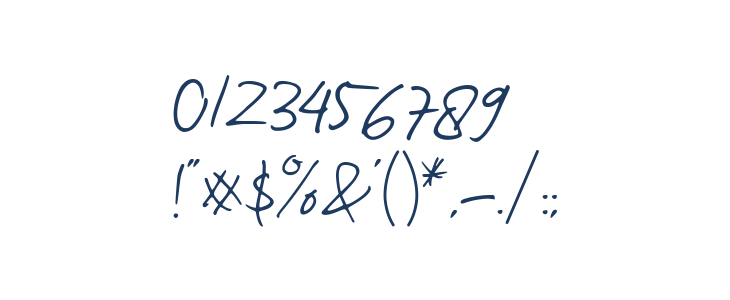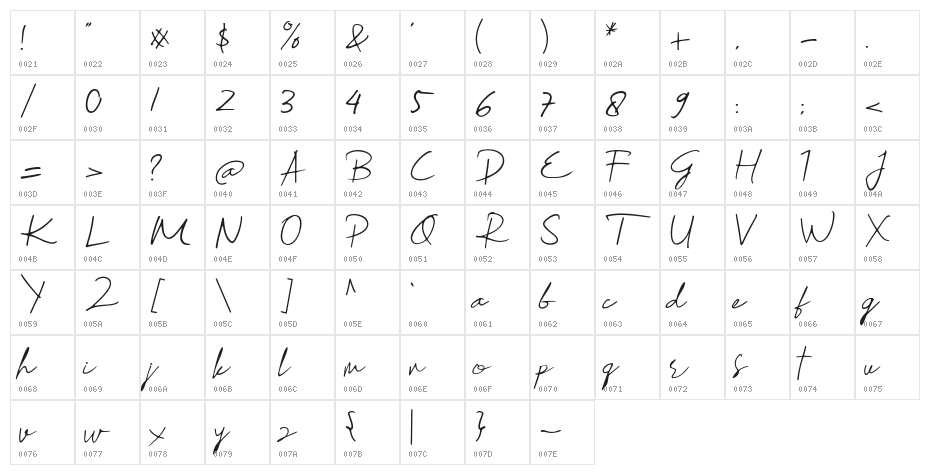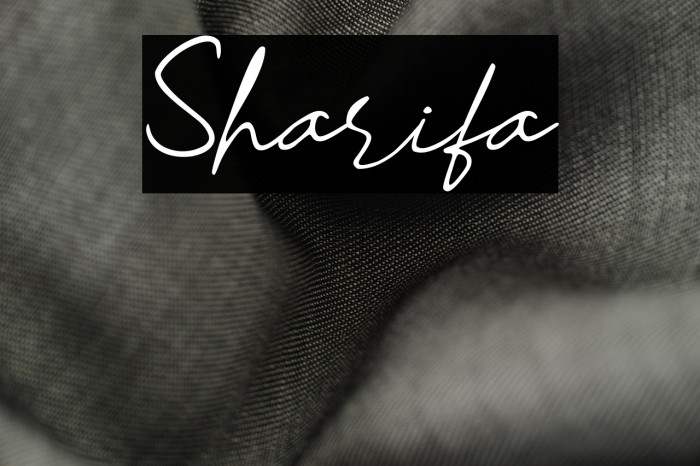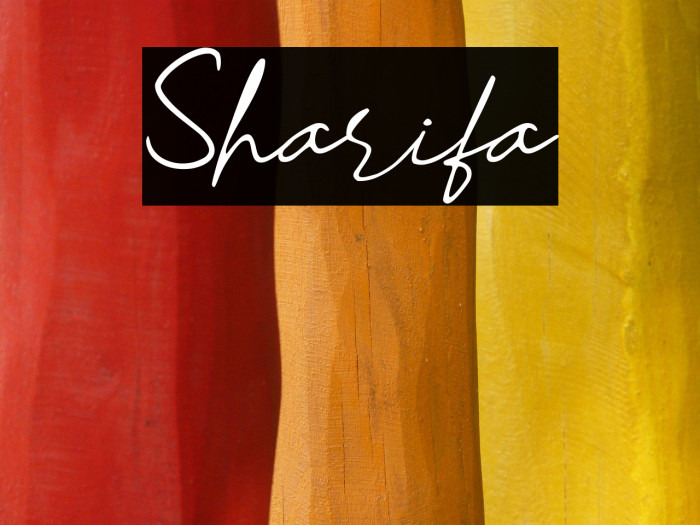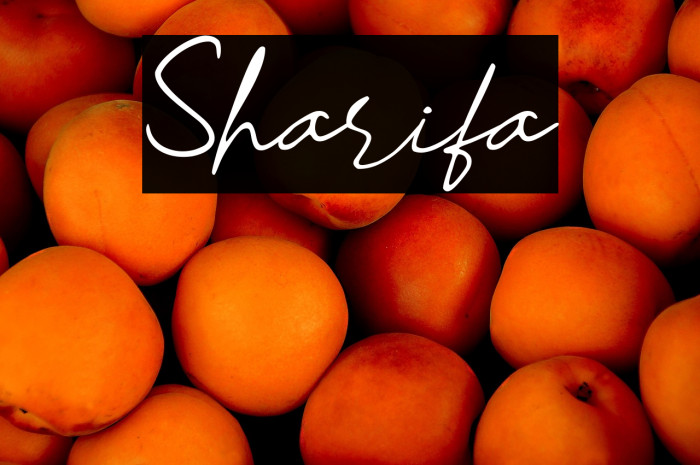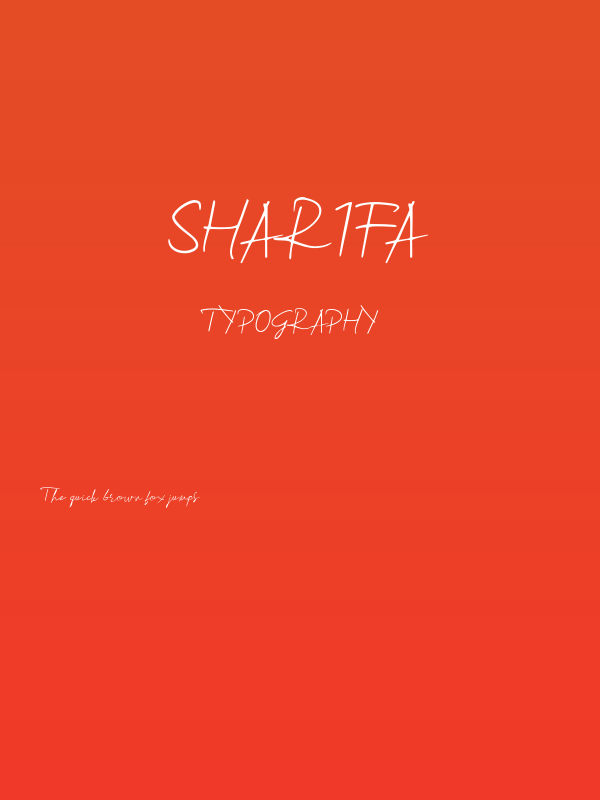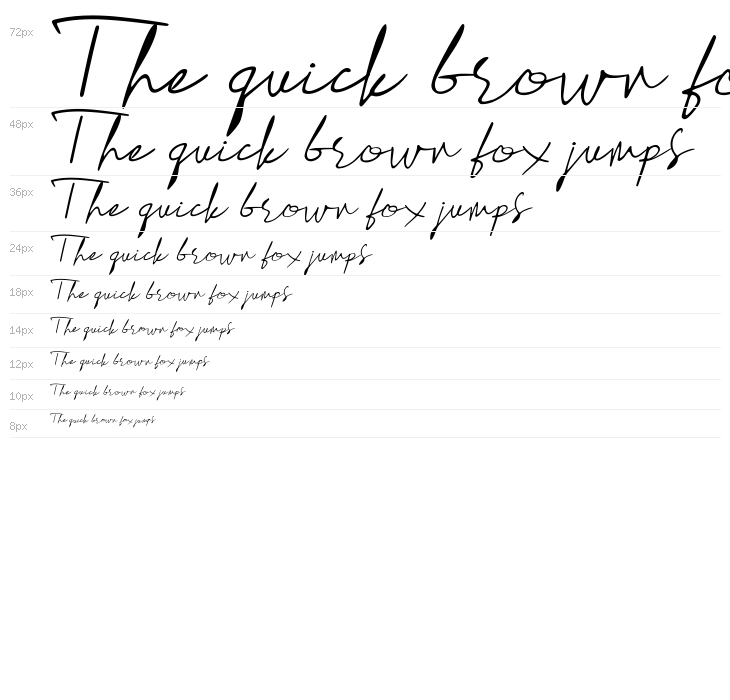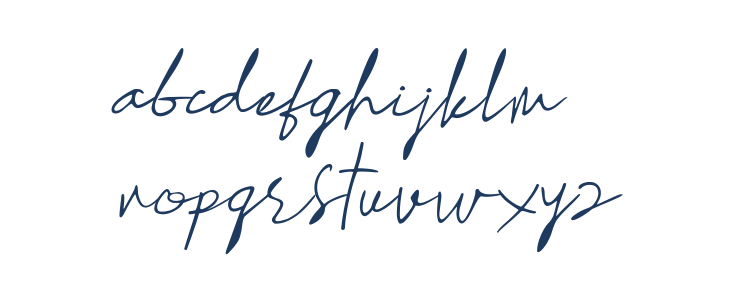
Sharifa Font
Sharifa Description
This font features a dynamic and fluid script style, characterized by its elegant and flowing letterforms. The uppercase letters are tall and slightly slanted, giving a sense of movement and grace. The lowercase letters continue this fluidity with smooth, connected strokes that mimic natural handwriting. The numerals are consistent with the script style, maintaining the same fluidity and elegance. Special characters are integrated seamlessly, adding to the font's versatility. Overall, this font exudes a sense of sophistication and creativity, making it ideal for projects that require a personal and artistic touch.
| Overall Style | Elegant and Artistic |
| Proposed Projects | Ideal for wedding invitations, greeting cards, personal branding, and artistic projects. |